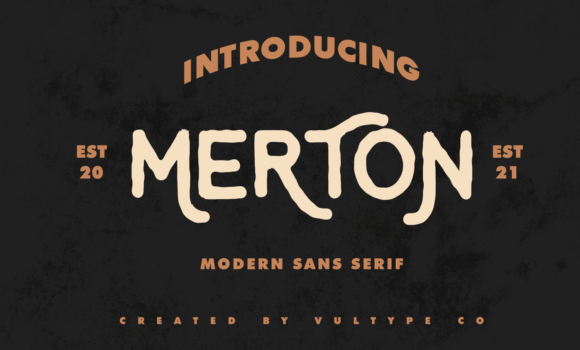
merton
Merton Font – Free Download Introduction to Merton Font Merton is a cool, vintage styled and assertive display font. 📸 Preview Gallery 6 images 📌 Product Name Merton Font 👤 Author vultype 📂 Category Explore ⬇️ Download Merton Font FREE